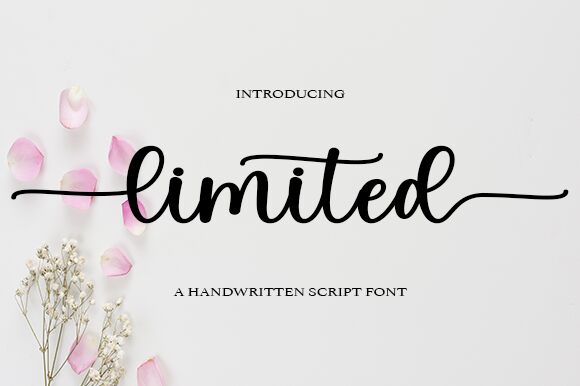
Limited
Limited, crafted by the creative minds at Wahyu Studio, elevates the handwritten font to an art form. Its charm is matched only by its elegance, making it a perfect companion for a range of design needs. From the personal touch on wedding invitations to the professional flair on business cards, Limited infuses a sense of bespoke sophistication into every project.
With its PUA encoding, this font ensures that accessibility meets style. Designers can effortlessly unleash the full potential of Limited's glyphs and swashes, bringing a tailored finesse to thank you cards, quotes, greeting cards, logos—anywhere that calls for a distinctive handwritten essence. Embrace Limited's versatility and let your creative endeavors be limited only by your imagination.